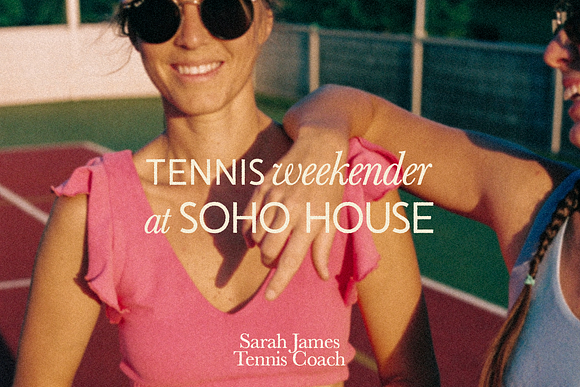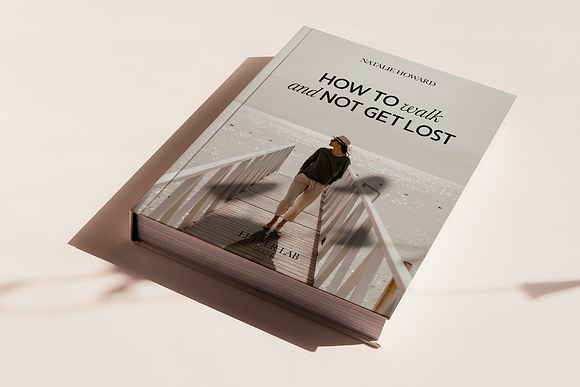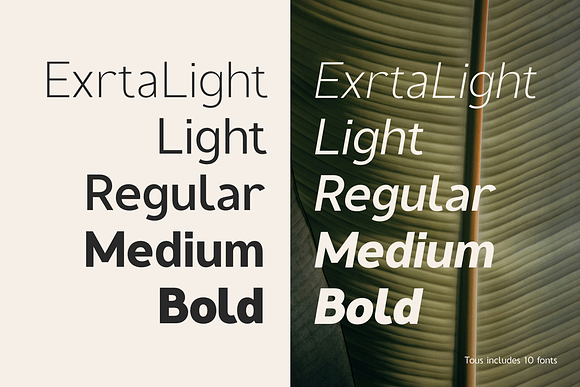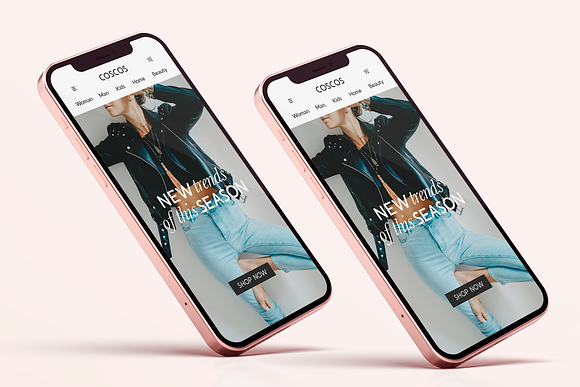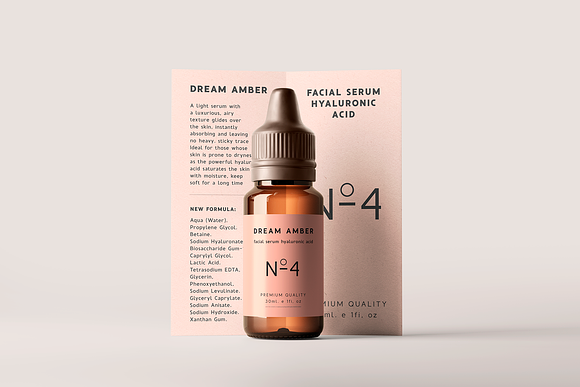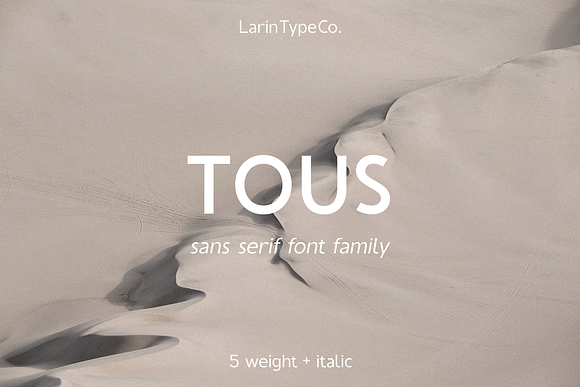
Tous Font
Tous It is a modern grotesque with moderately open apertures, low visual contrast and high legibility. It includes 5 weights and italic to them from ExtraLight to Bold. It is versatile and suitable for a wide range of applications due to its practicality and conciseness. It works great with text in both small and large, whether it's a title or a description, it will do an excellent job with this task. With it, you can create logos, labels, use in advertising, packaging, branding, book covers and magazines, cosmetics, banners, posters, headings, descriptions and much more.